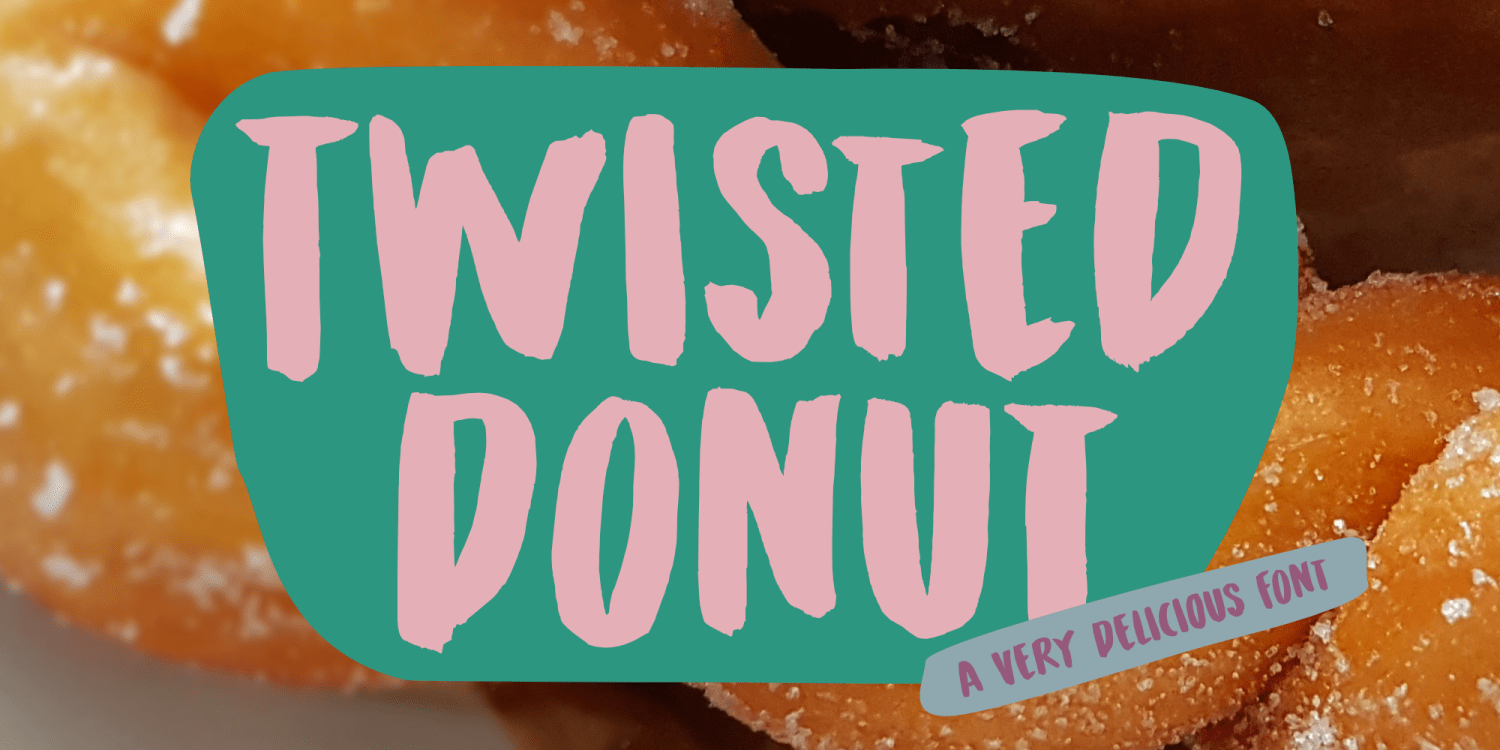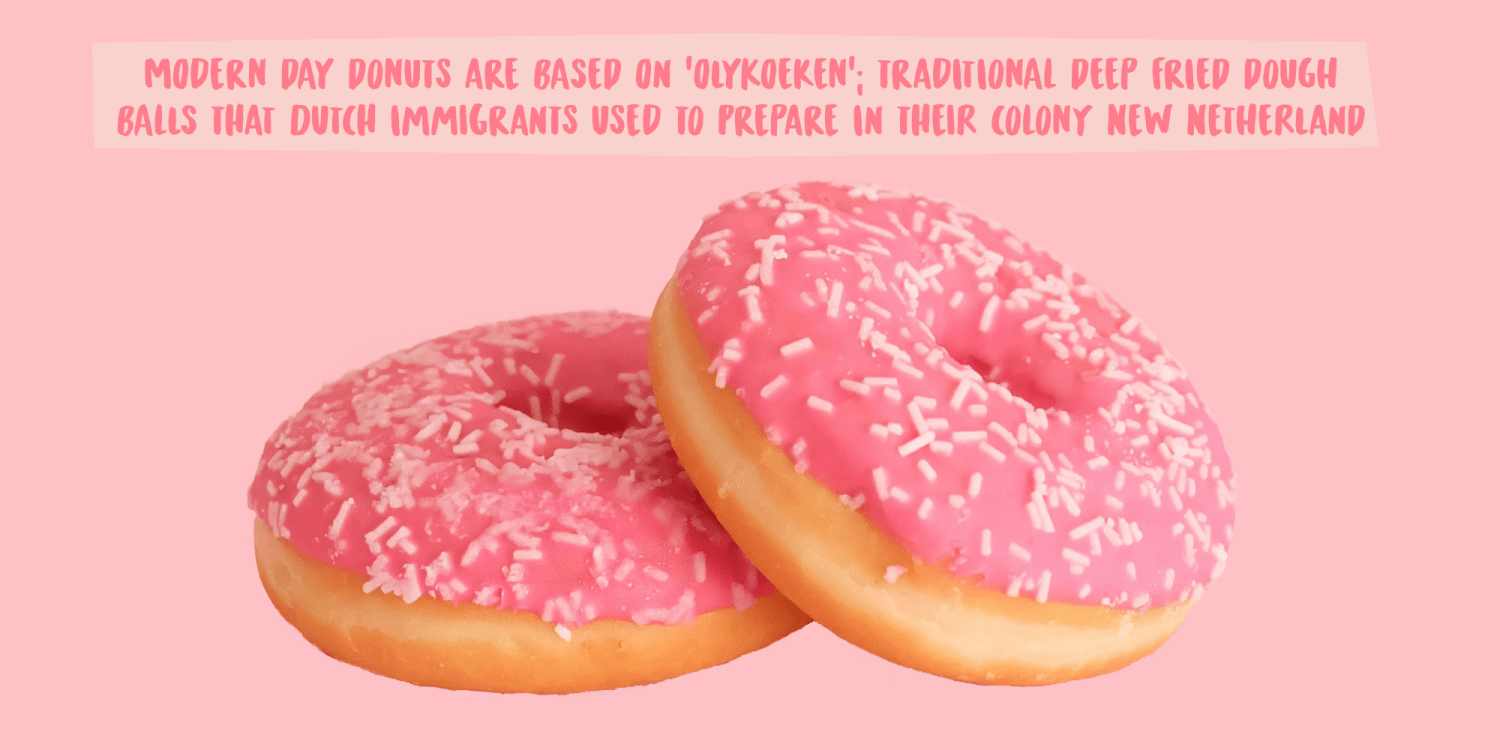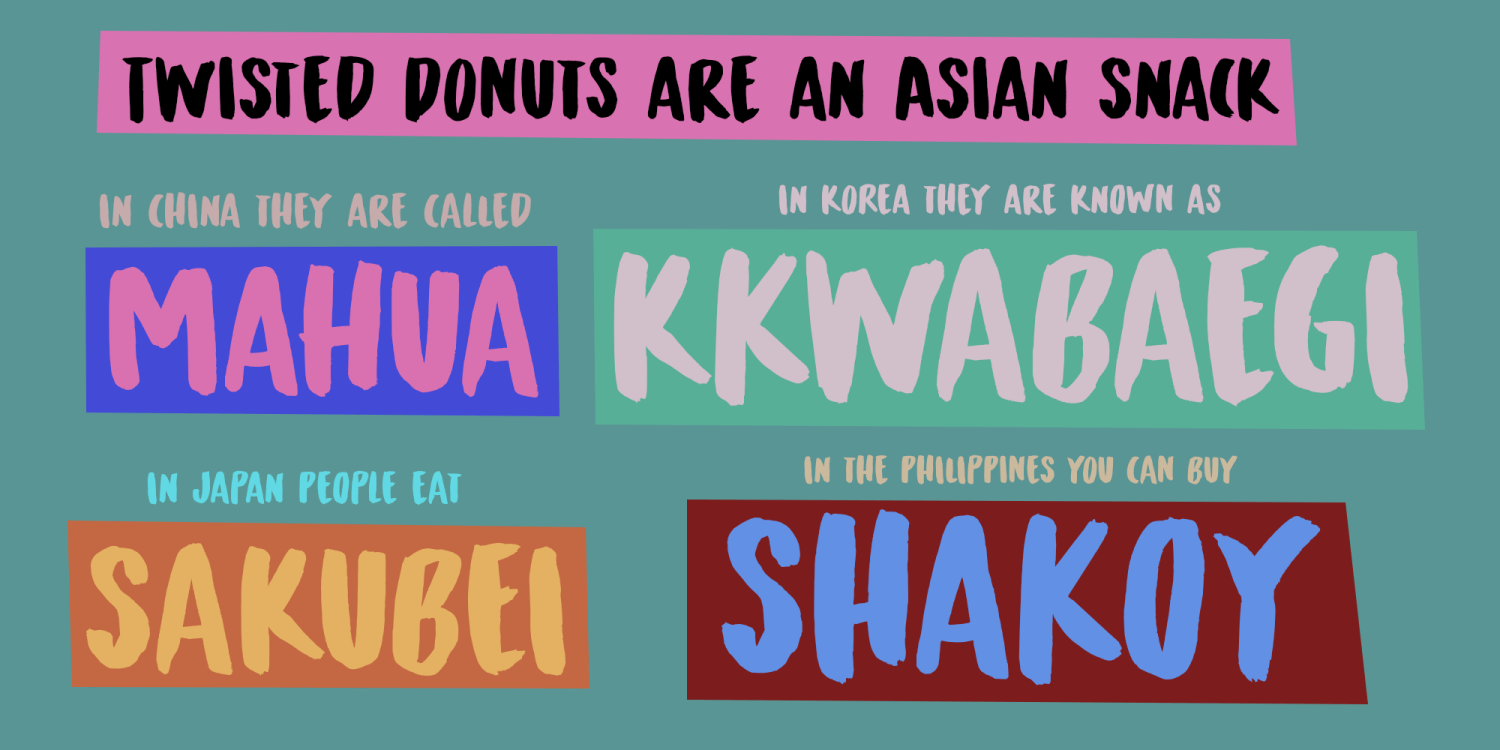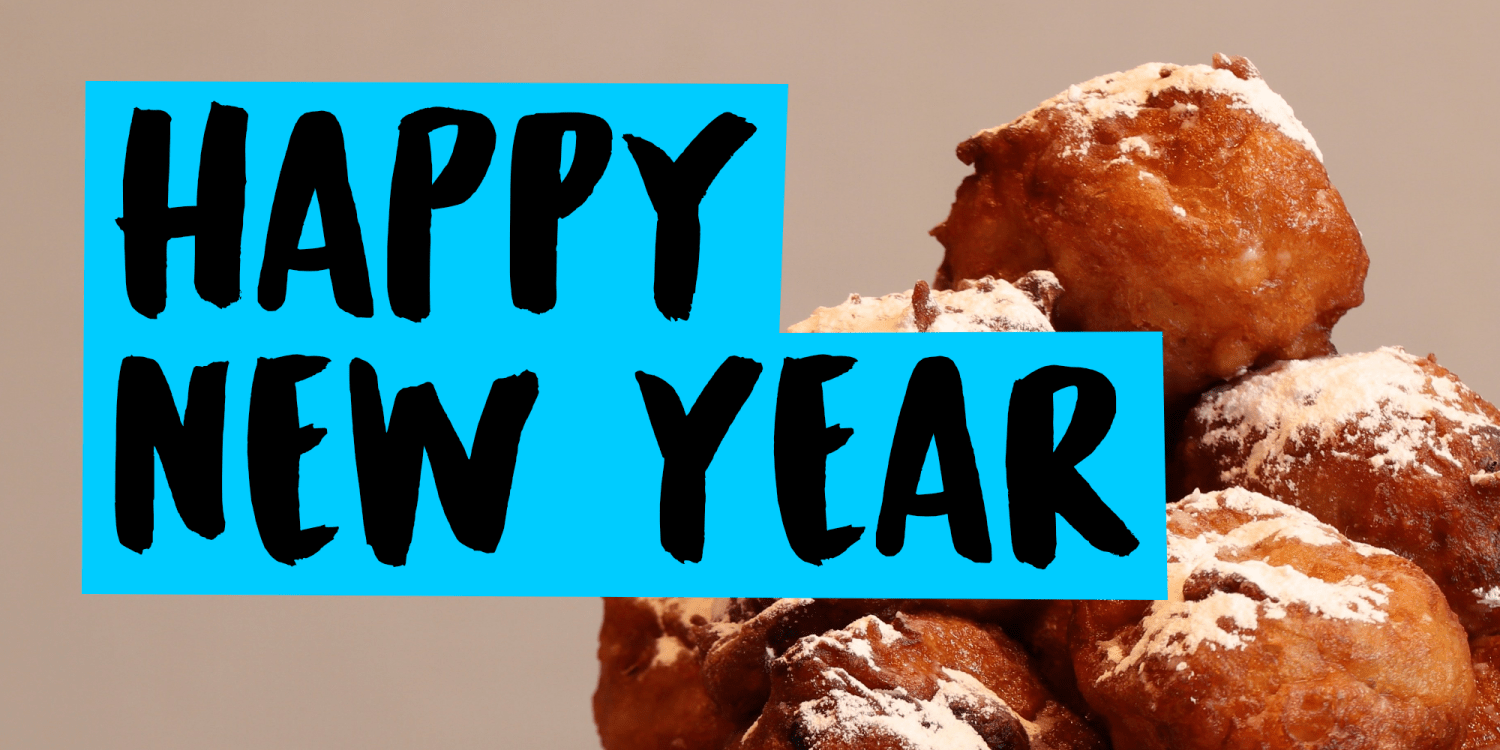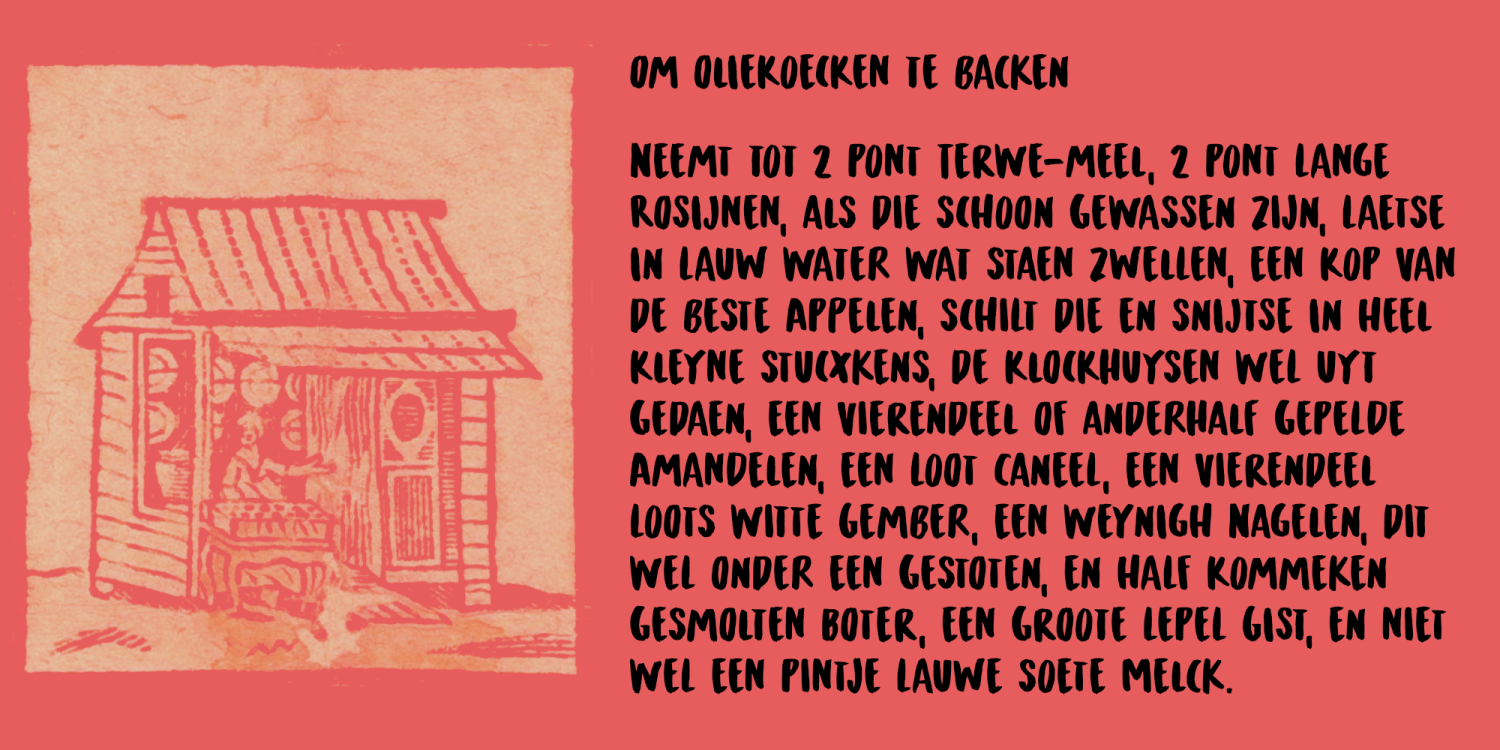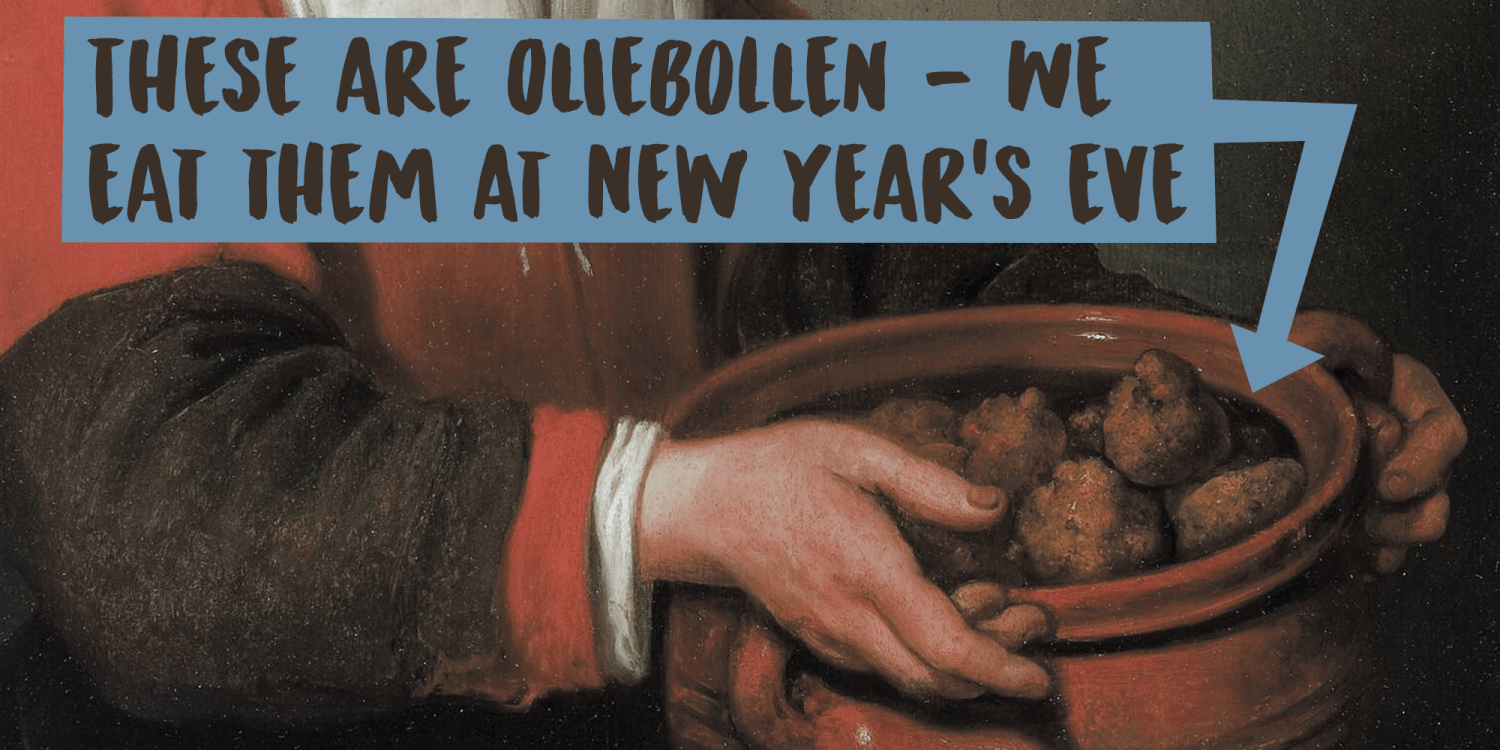
Twisted Donut
This year I have traveled to Japan 3 times. I used to be a tour guide, guiding groups around the world, but ever since my kids were born I have stayed at home. The kids have grown, so I have picked up guiding a few tours now and then. In Japan they have twisted donuts, which are delicious! So this font was named after my favourite snack!
Twisted Donut was made using a horse hair brush and Chinese ink. It comes with extensive langue support and a set of alternates, so enjoy!